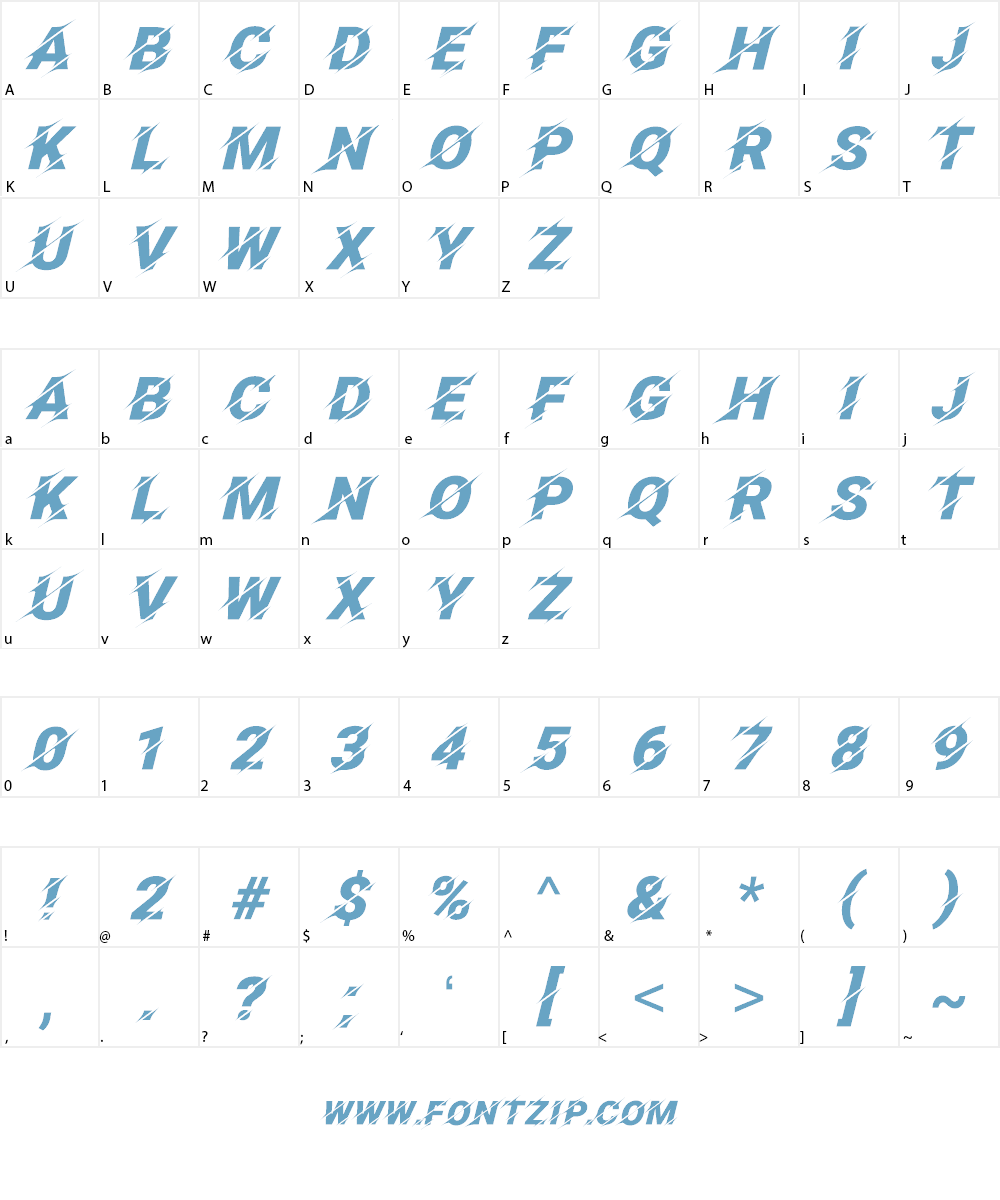
Facón is a sport display font with diagonal cuts designed by Alejo Bergmann. It contains all caps letters, numerals and symbols. This font perfectly suites for variety display purposes, including logotypes, badges and labels, headlines and banners, posters, prints and much more.